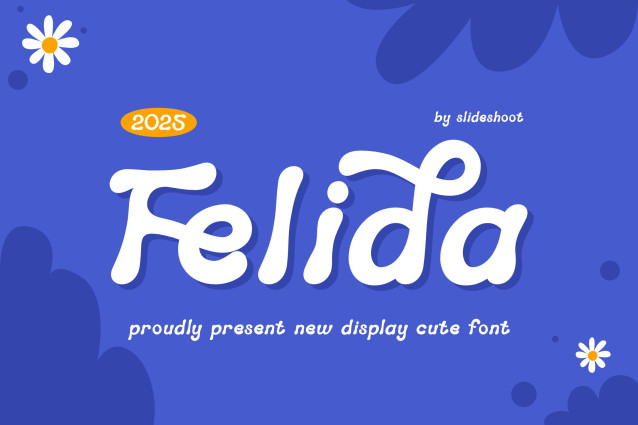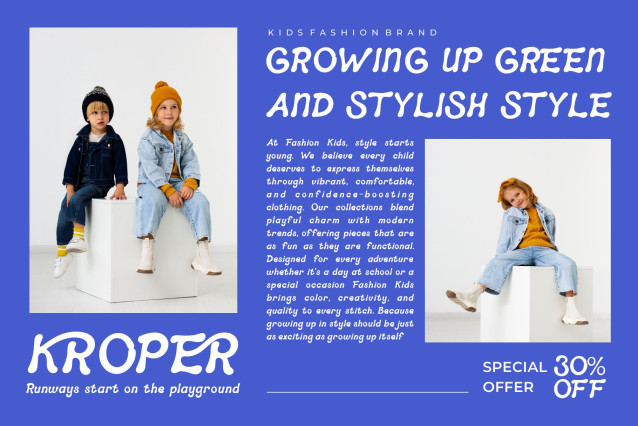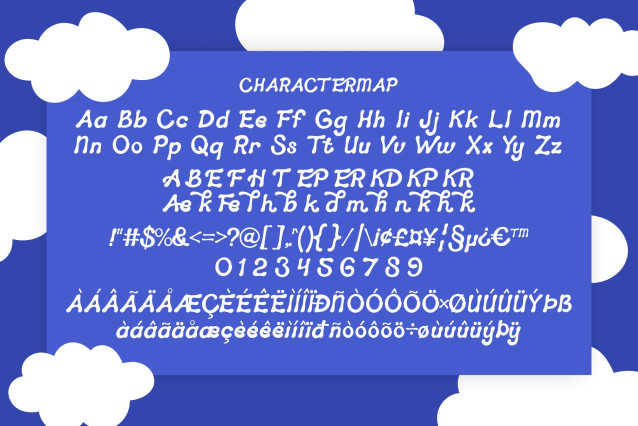
Felida Font
Felida Display is a cute and playful font type for all branding and logo designs. This is a cute and playful Display font has a beautiful character. This font is suitable for invitation card designs, cool logos, movie titles, movie names, business cards, book titles, brand names, and various other designs. Felida Display is a smooth Display font that exudes sophistication and the moment. Its stylish ligatures make this font a perfect partner for any project.